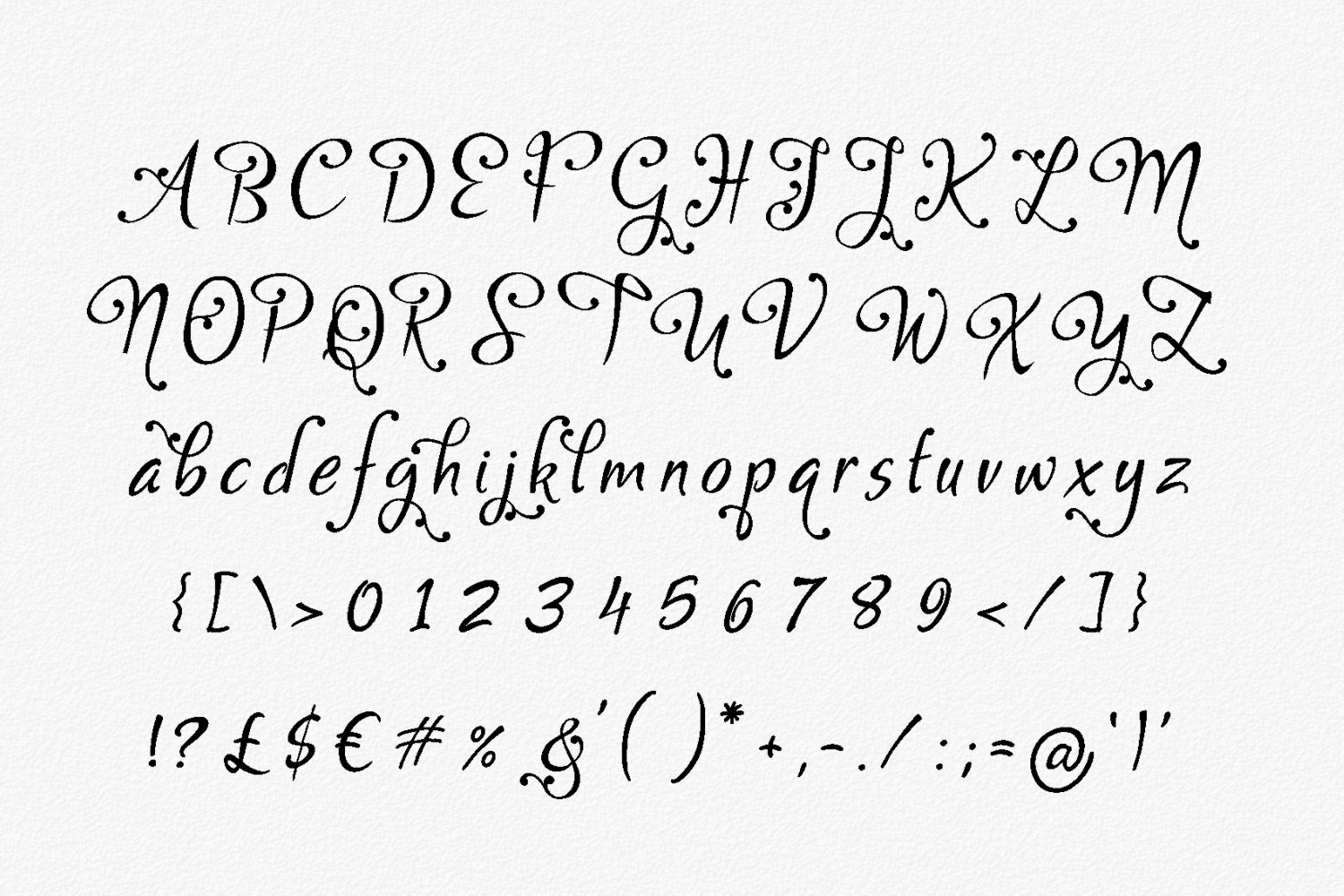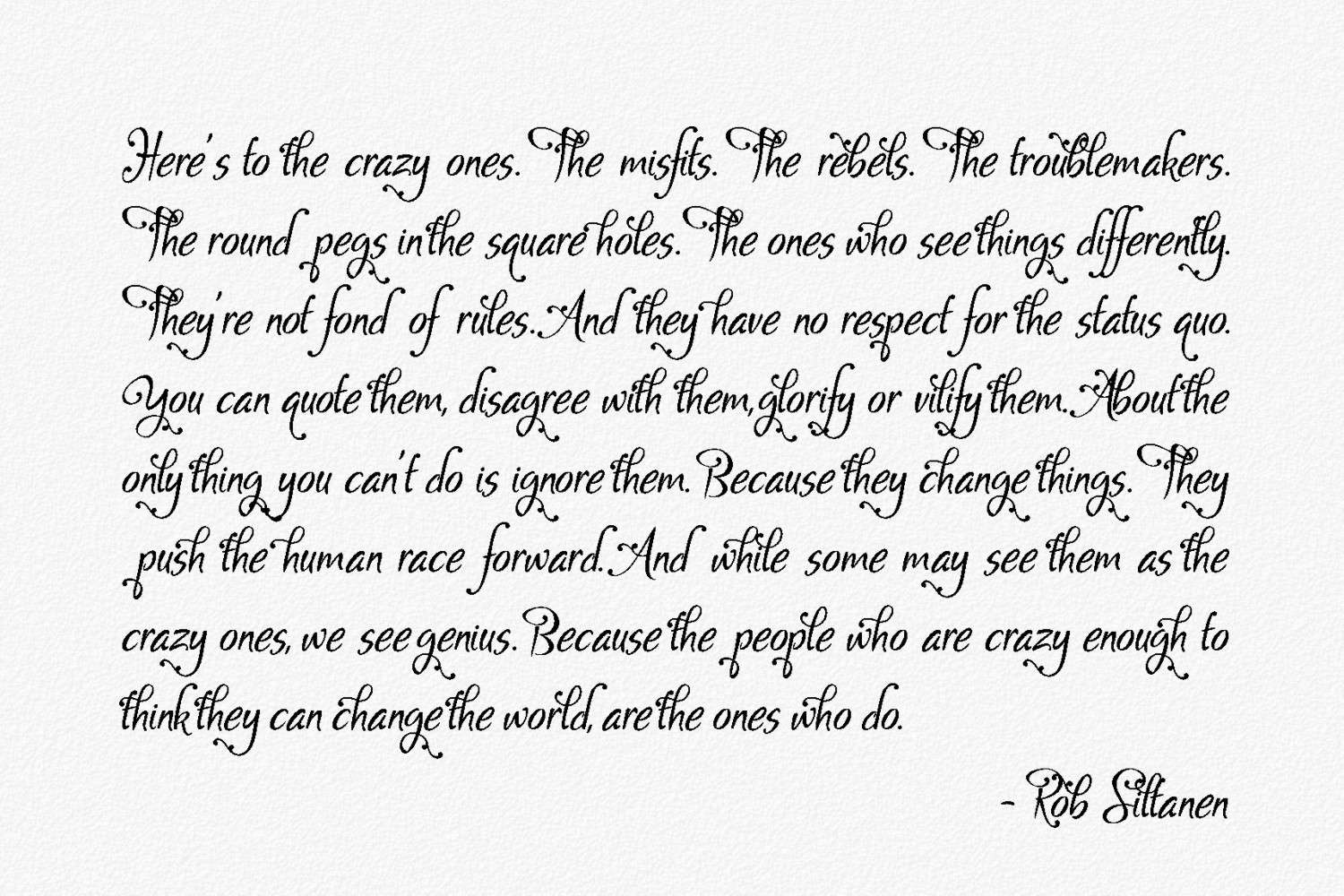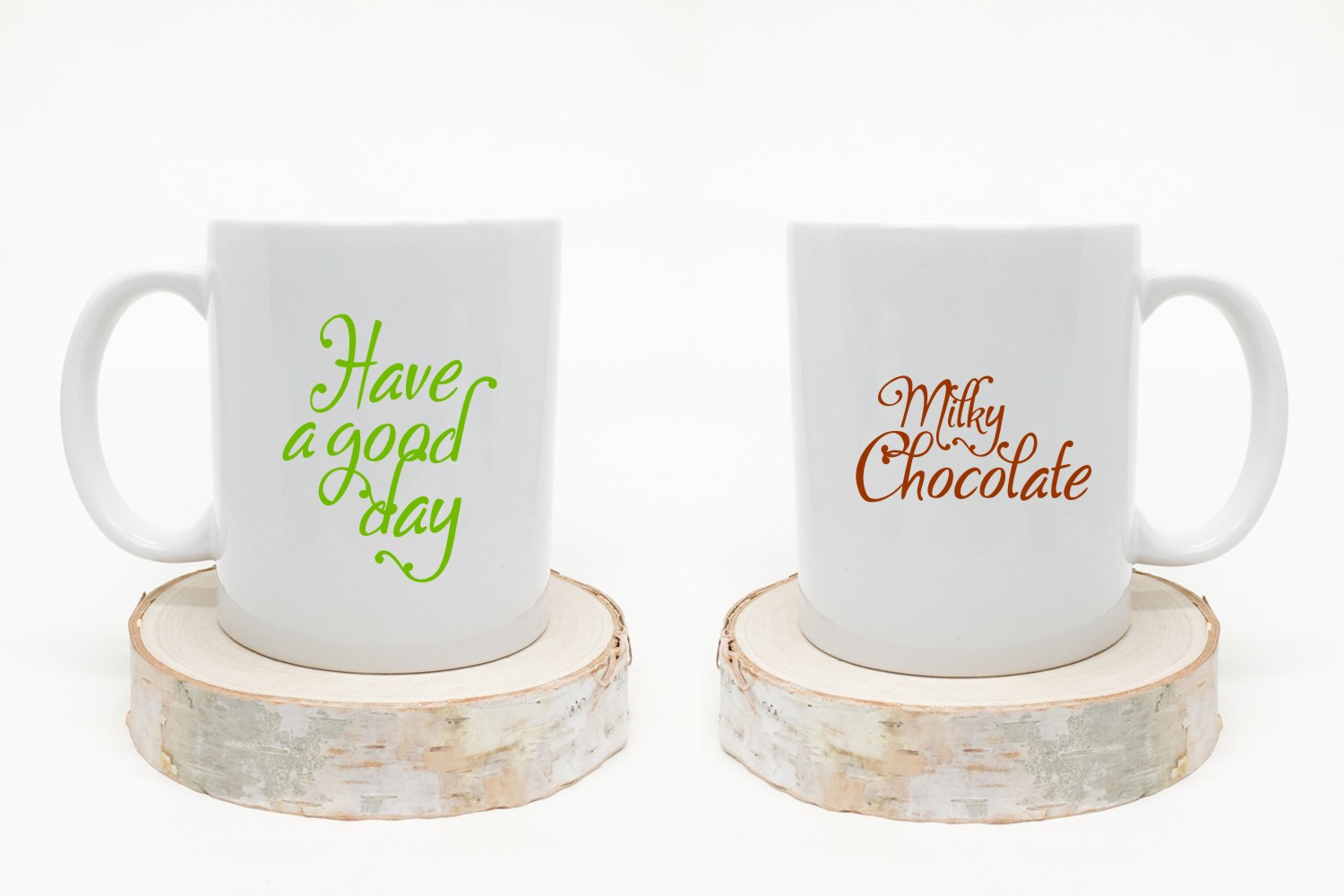
Introduction to Gaby Font
Do you remember the thrill of brainstorming a new creative project, only to have your ideas stifled by the lack of the perfect font? The one that makes your message stand out, tells a story, and captures the essence of your brand? For designers, finding that elusive font can be a game-changer. That’s where Gaby Font comes in – a stunning, high-quality handwritten typeface that’s about to revolutionize your design workflow.
With its elegant, embellished script, Gaby Font is the perfect design resource for any project that demands attention. Whether you’re working on a logotype, display design, or need a beautiful font for your latest creative endeavor, Gaby Font has got you covered. Plus, with its transparent background, you can easily place it over any image or background, giving you endless design possibilities.
Key Features of Gaby Font
- High-quality design resource ideal for creative projects, offering a unique and stylish touch.
- Unique characteristics include elegant, cursive script and a wide range of ligatures, making it a standout design resource.
Honest Review: Gaby Font
I recently stumbled upon Gaby Font and was excited to give it a try. As a designer, I’m always on the lookout for high-quality design resources that can elevate my creative projects. Gaby Font is a beautiful script font that I’ve been using in a recent design project, and I have to say, it’s been a game-changer.
However, there are a few limitations to consider: ⚠️ The font is only available in a few weights, which may limit its use in certain design applications. Additionally, the font may not be suitable for small text sizes, as the script style can become difficult to read.
Overall, I’m really impressed with Gaby Font and would definitely recommend it to fellow designers. It’s a high-quality design resource that’s perfect for creative projects that require a touch of elegance and sophistication.
- High-quality script font perfect for creative projects
- Only available in a few weights
- May not be suitable for small text sizes
Gaby Font
Tips for Getting the Most Out of Gaby Font
To maximize the use of Gaby Font, ensure you have a transparent background and use it in conjunction with other high-quality design elements. Experiment with different font sizes, colors, and styles to achieve the desired look.
Gaby Font is suitable for a wide range of creative projects, including:
- Branding
Alternatives to Gaby Font